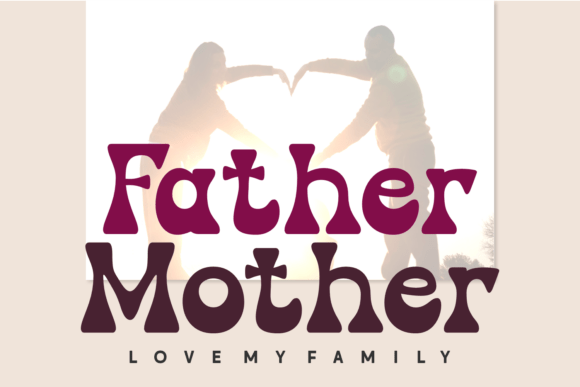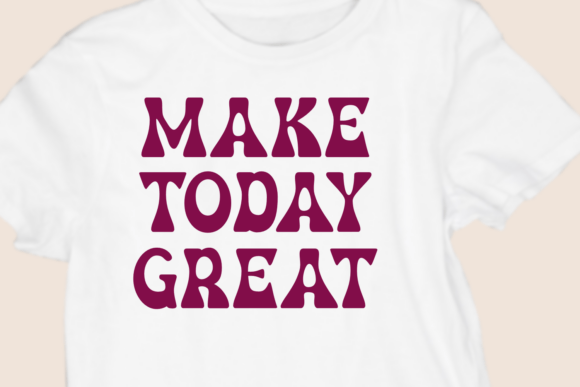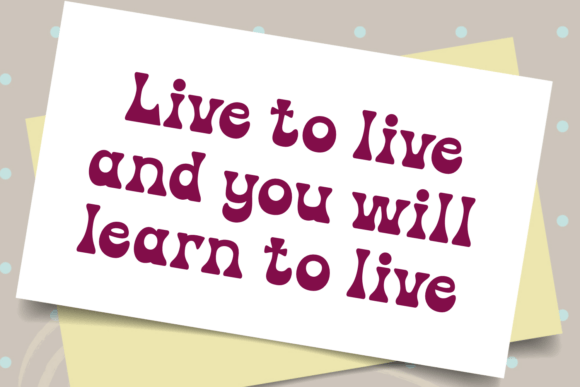
Introducing Fervent Feeling: The Elegant Typeface That Brings Passion to Your Designs
Have you ever been working on a design project, pouring your heart and soul into it, only to get stuck on one thing: the font? I know I have. It was for a luxury branding project, and I needed a typeface that exuded elegance, sophistication, and a hint of emotion. That’s when I discovered Fervent Feeling, a bold yet refined display font that instantly captured the essence of my client’s vision.
With Fervent Feeling, you can bring a touch of personality and passion to every design project. Its flowing curves and confident strokes make it perfect for branding projects, posters, invitations, packaging, or editorial layouts. This typeface strikes an expressive balance between elegance and emotion, making your words not just seen, but felt.
What Makes Fervent Feeling Special?
Fervent Feeling boasts several unique features that set it apart from other typefaces:
- ✨ Graceful, sculptural letterforms that feel both vintage and modern.
- ✅ Ideal for display purposes — headlines, branding, packaging, and editorial design.
- ⚠️ A font that requires a bit of exploration to get the most out of its OpenType features, but trust me, it’s worth it!
- ✨ The elegant, refined aesthetic that works well for luxury brands and high-end designs.
- ✅ The font’s versatility — it can be used for a wide range of projects, from posters to editorial layouts.
- 🔥 The way it brings emotion and personality to your designs, making them more engaging and memorable.
While Fervent Feeling is an amazing typeface, there are a few things to keep in mind:
- 🤔 It can be a bit tricky to navigate its OpenType features, especially for beginners.
- ⚠️ Some users might find the font a tad too ornate for certain projects, but this is a minor quibble.
The Backstory Behind Fervent Feeling
Fervent Feeling was designed with the intention of capturing the essence of passion and emotion in typography. The designer, inspired by the flowing curves and confident strokes of classic calligraphy, aimed to create a font that would bring a touch of personality and sophistication to every design project. Through a combination of traditional techniques and modern technology, Fervent Feeling was born — a typeface that embodies the perfect balance between elegance and emotion.
Q: What is Fervent Feeling, and what makes it unique?
Fervent Feeling is a bold yet refined display font that exudes character through its flowing curves and confident strokes. Its unique blend of elegance and emotion makes it perfect for a wide range of design projects.
Q: Does Fervent Feeling support OpenType features?
Yes, Fervent Feeling supports OpenType features, including stylistic alternates and glyphs. This allows you to access a range of creative options and customize your typography to suit your design needs.
Q: Can I use Fervent Feeling in digital and print designs?
Absolutely! Fervent Feeling is versatile and works well in both digital and print designs, making it perfect for a wide range of applications, from branding and advertising to editorial layouts and packaging.